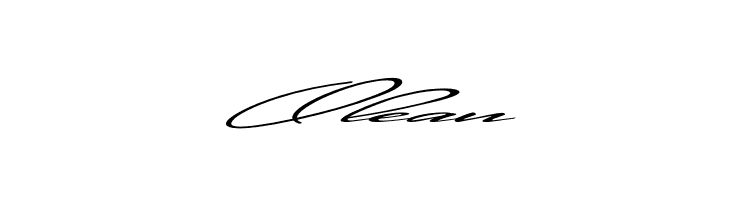
A decorative script font with elegant, flowing curves and intricate swirls.
A sophisticated script font with high contrast and flowing, interconnected letters.
A casual, elegant handwritten font with smooth, flowing letterforms.